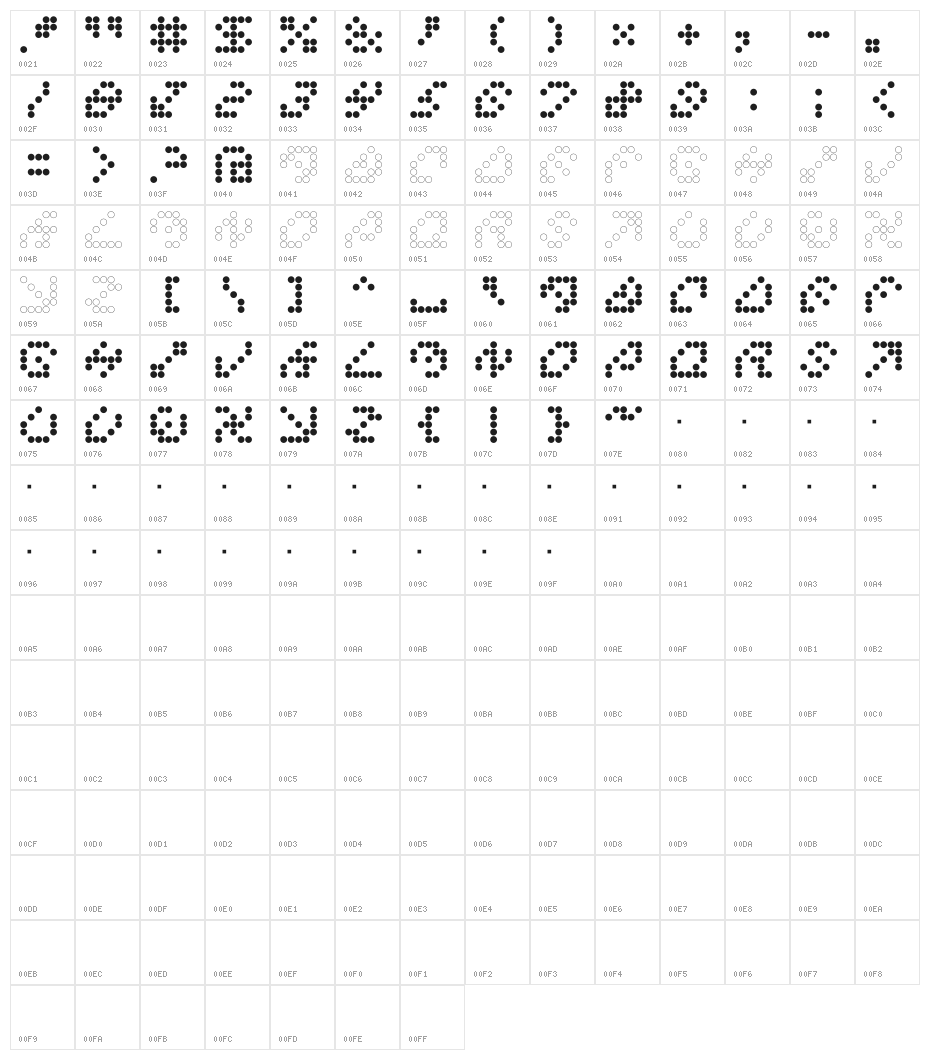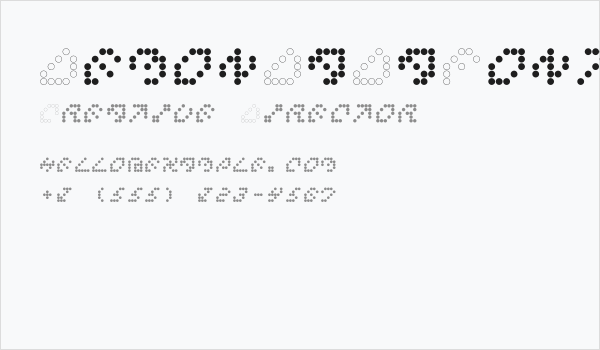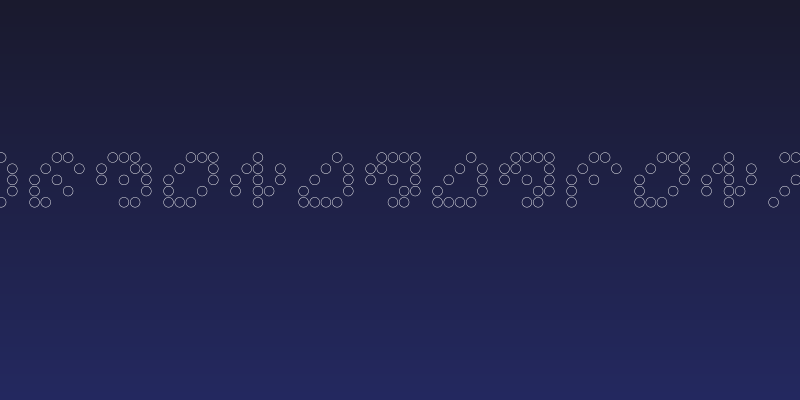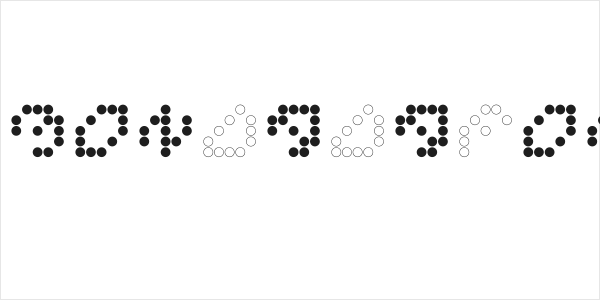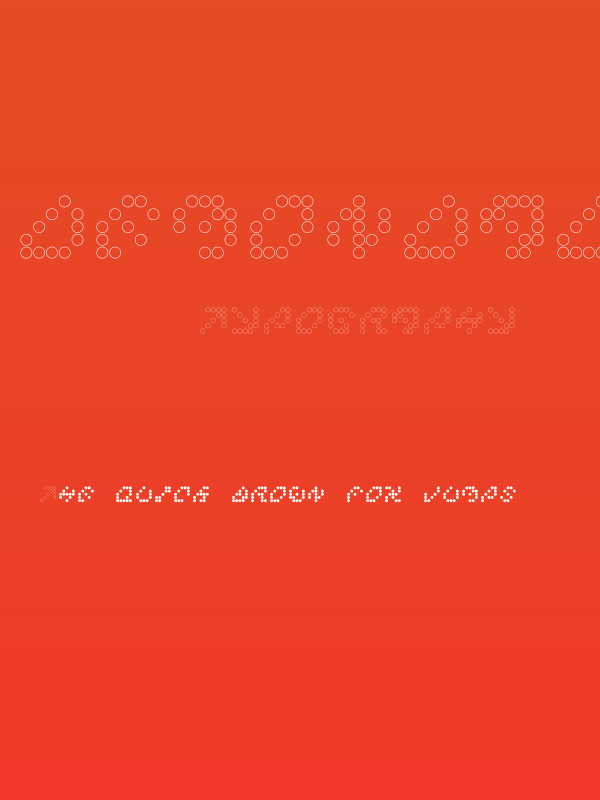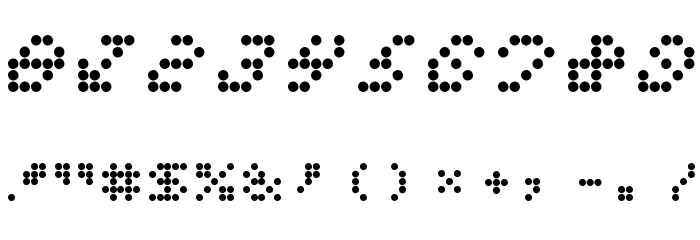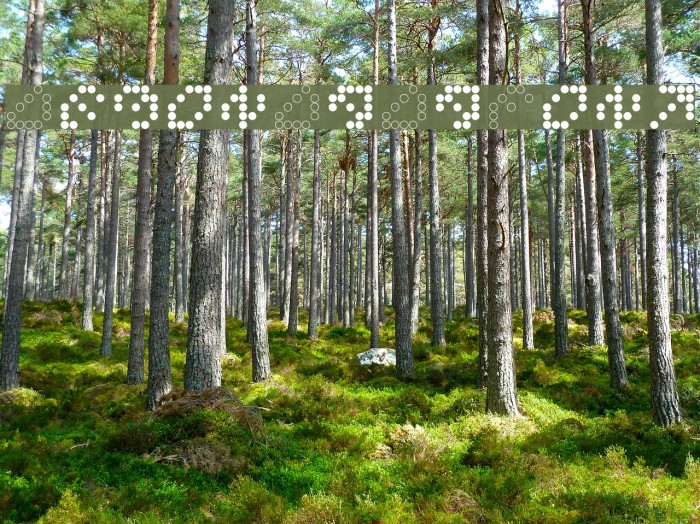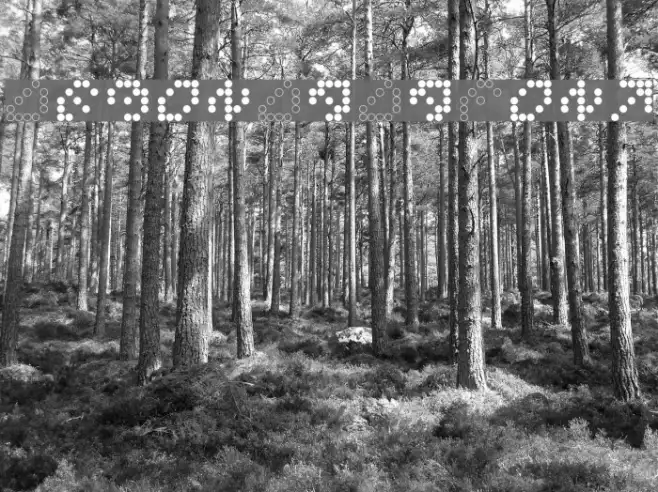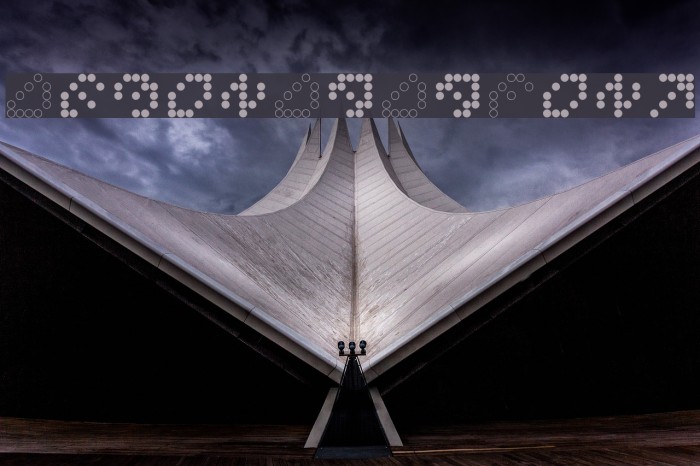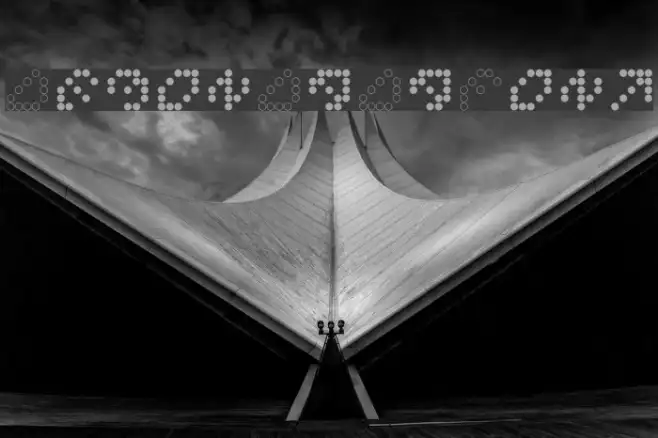
DemonDaDaFont Font
DemonDaDaFont Description
This font features a unique design where each character is composed of a series of interconnected circles, creating a dotted pattern. The style is consistent across uppercase, lowercase, numbers, and special characters, maintaining a playful and abstract aesthetic. The characters are evenly spaced, with a medium contrast in stroke thickness due to the uniform size of the circles. This font stands out with its decorative and modern appeal, making it suitable for creative and artistic projects.
| Use Case | Logos, Posters, Creative Titles |
| Proposed Projects | Ideal for artistic projects, children's books, creative branding, and playful graphic designs. |